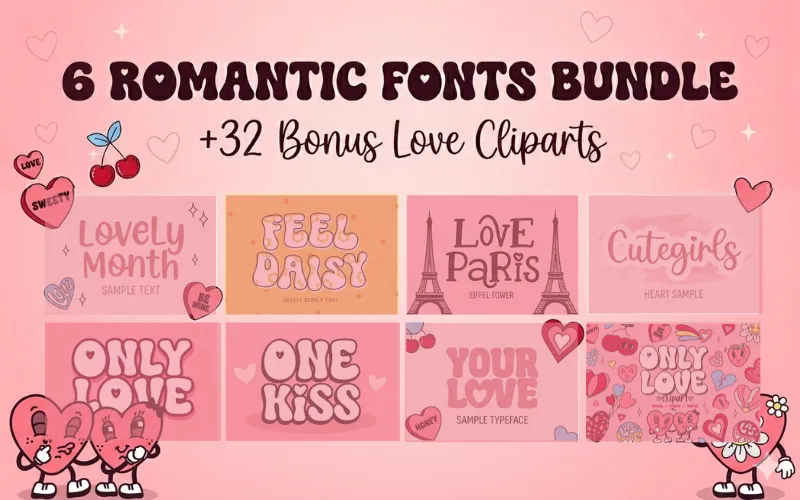
8 Romantic Fonts with Love Cliparts
• 8 romantic fonts (hand-lettered, script, and display styles)
• 32 bonus love-themed cliparts (hearts, florals, arrows, frames, and more)
Ideal uses
• Wedding and engagement invitations
• Save-the-dates, RSVP cards, and signage
• Valentine’s Day promotions and social media posts
• Branding, logos, and packaging with a romantic feel
• Custom apparel, mugs, and print-on-demand products